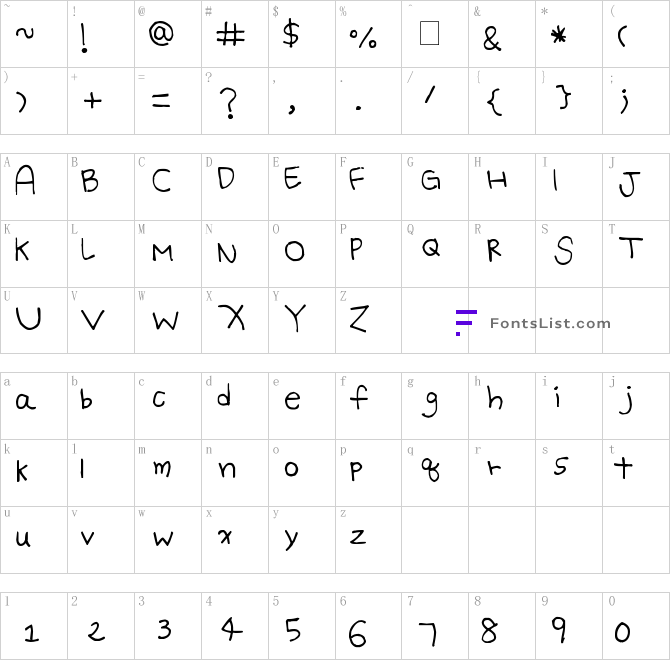
- Font Name:Batty Girl
Batty-Girl.ttf is a very beautiful artistic font, Batty-Girl.ttf is widely used in the design and printing of various books and pictures,Batty-Girl.ttf has a strong visual impact,Batty-Girl.ttf is a commonly used font in newspapers, magazines and books, and is used in posters, e-commerce Poster design, store design, logo design, font design and other fields.Batty-Girl.